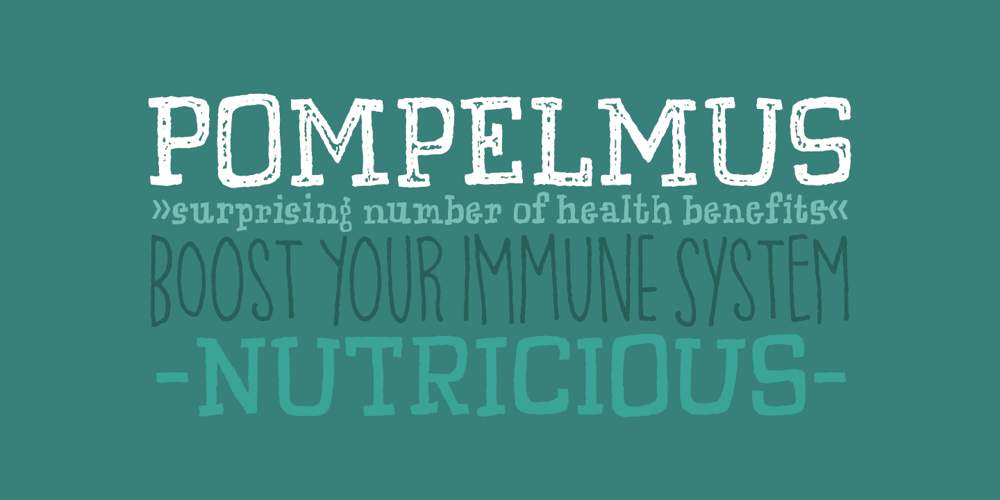
Pompelmus Font Family was designed by Jakob Fischer and published by PizzaDude.dk. Pompelmus contains 5 styles and family package options. Crispy: ALL CAPS crispy letters Nutricious: “clean” version of Crispy Fiber: The messy inside of Crispy Healthy: Rough serif font Sweet: Handwritten and crunchy